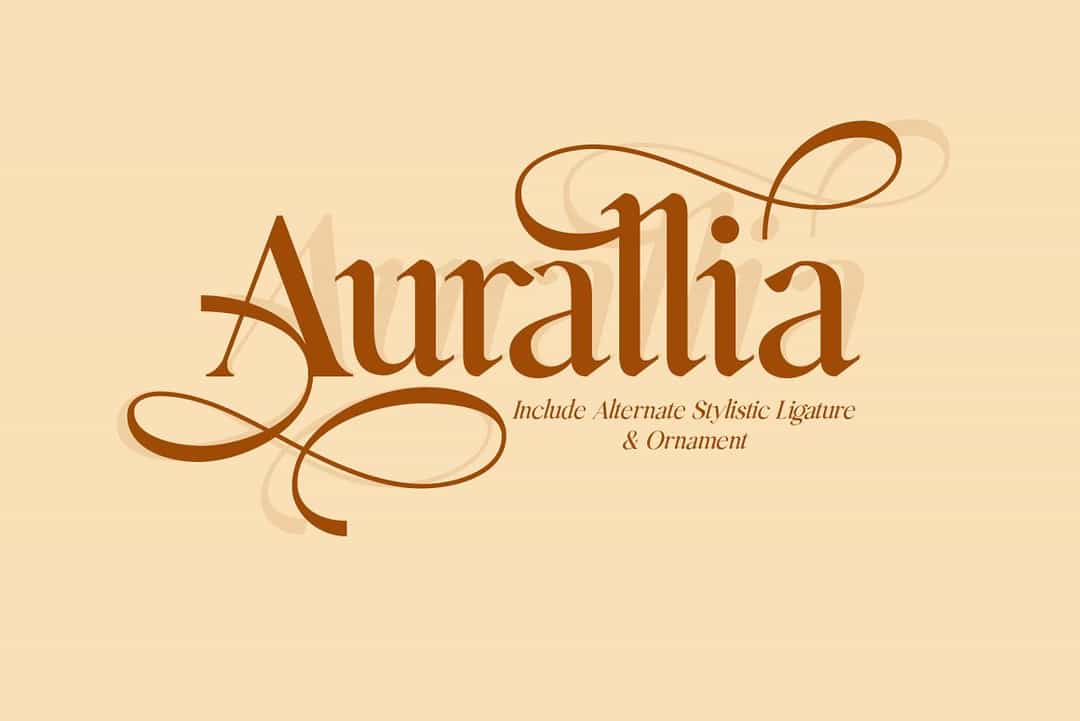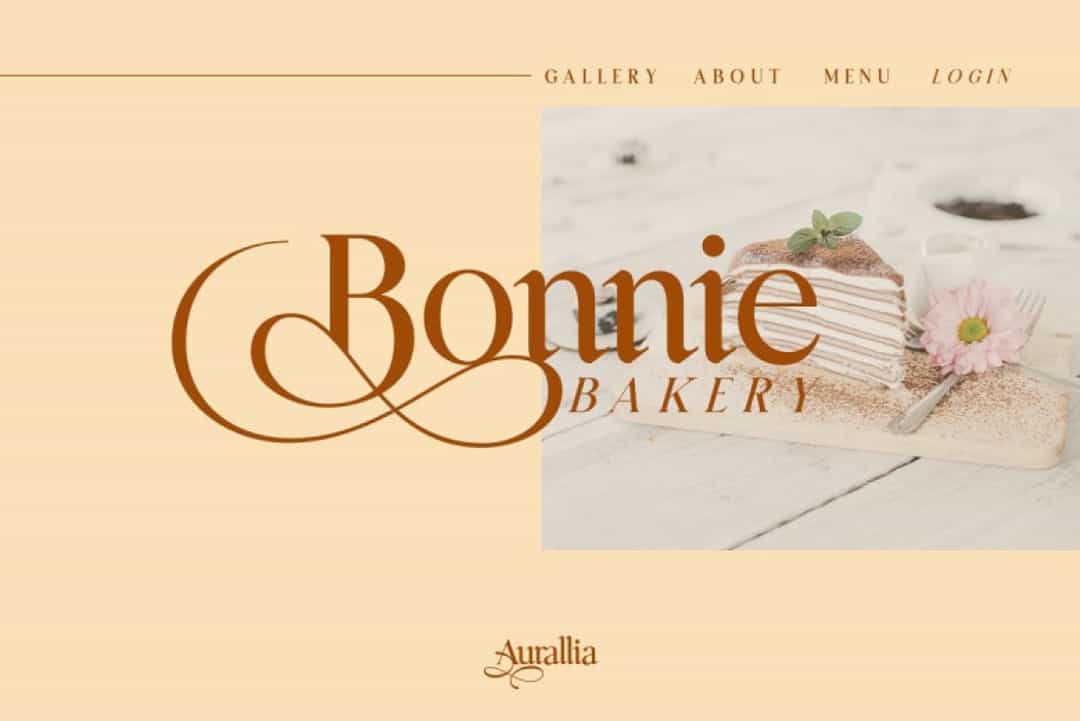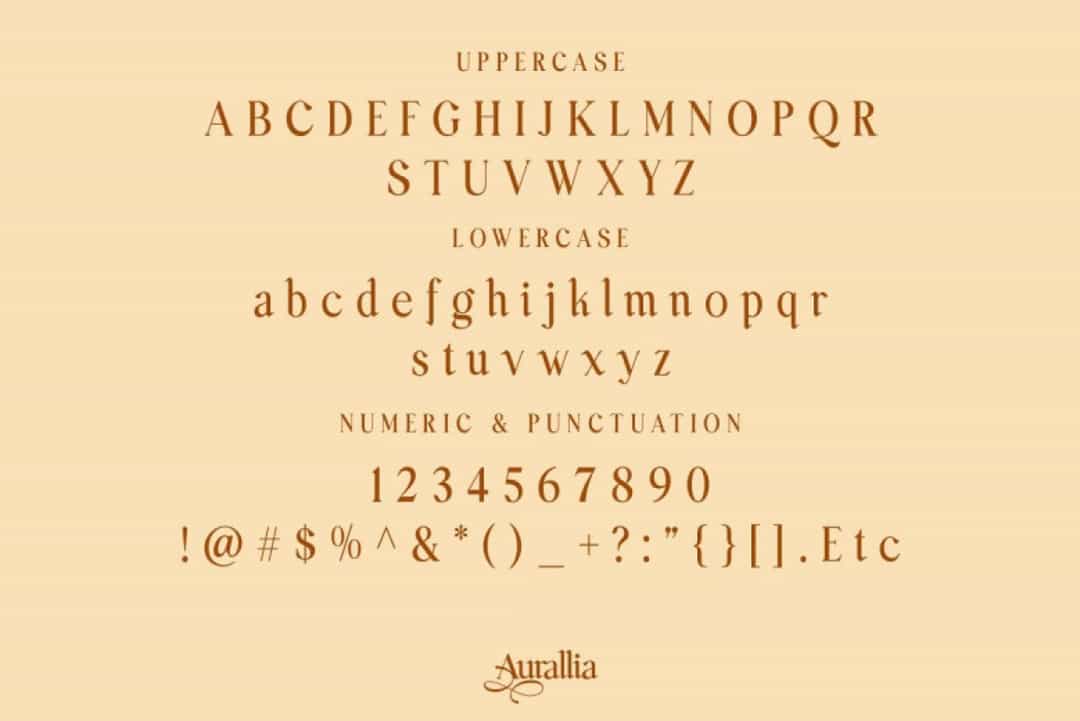
Discover Aurallia Font, part of the Serif collection—a versatile and unique font perfect for adding a personal touch to your projects. Download it for free and enjoy crafting designs with style, from invitations to social media posts. This font is available exclusively for personal use, giving you the freedom to create without limits. Unlock your creativity with Aurallia Font today!
Aurallia is an exquisite and sophisticated serif font. Featuring beautiful detailing and designed by expert hands, Aurallia makes an excellent addition to your library of fonts, as it can enhance any design project. Plus, PUA encoded so that you have easy access to its symbols and swashes!